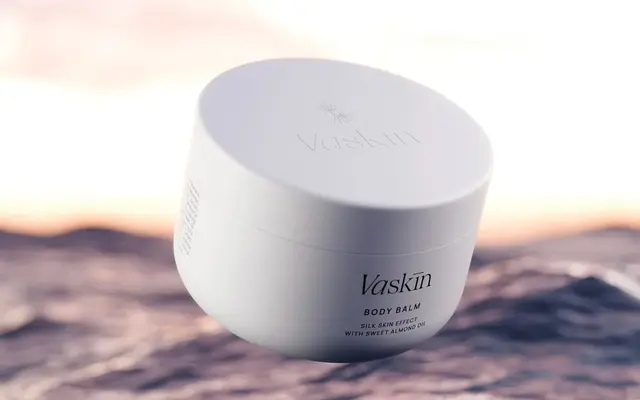
Pangaia
Pangram Foundry · Samuel Salminen, Mat Desjardins, Francesca Bolognini · 2023
A nature-themed serif by Samuel Salminen, Mat Desjardins and Francesca Bolognini, drawing its fluid curves and expressive swashes from organic forms found in the natural world.
Spanning nine weights from Thin to Black with matching italics and a variable cut, Pangaia's letterforms reference leaves, riverbanks and mountain slopes through undulating strokes and serifs that widen like branches. Alternate glyphs for J, V and W alongside swash variants add further expressiveness suited to branding and editorial use. The 513-glyph set covers a broad range of Latin Extended languages including Croatian, Hungarian, Icelandic and Romanian.
Pangaia is classified as a serif with organic, nature-inspired curves; its fluid strokes and blossoming serifs draw from natural forms rather than conventional geometric or humanist traditions, placing it firmly in an expressive, organic serif subcategory.